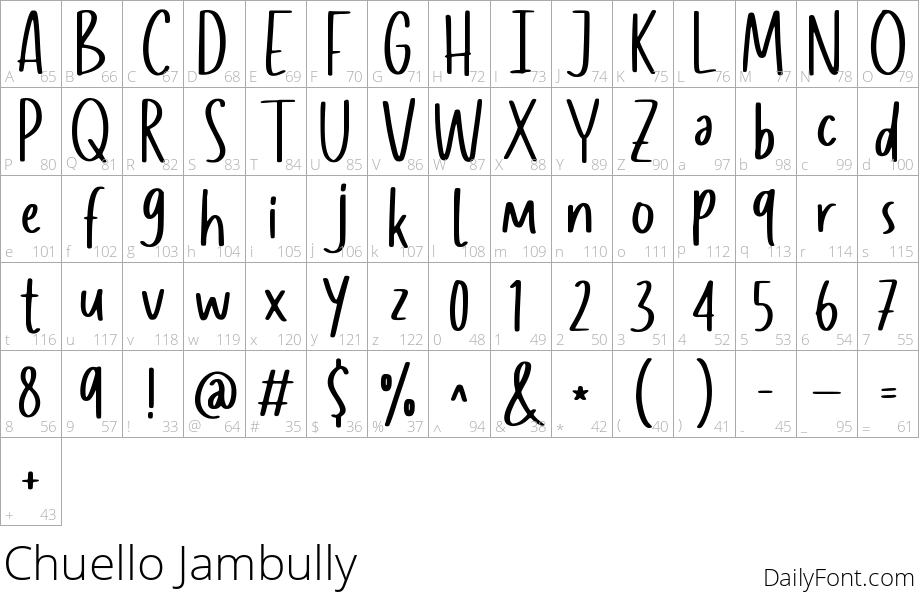
Chuello Jambully
This adaptable font captures attention while maintaining readability, ensuring that your messages are conveyed beautifully and effectively. The unique character set boasts a combination of sophistication and charm, making it a wonderful asset to your font library. Elevate your designs with Chuello Jambully and discover endless possibilities to express your unique style.